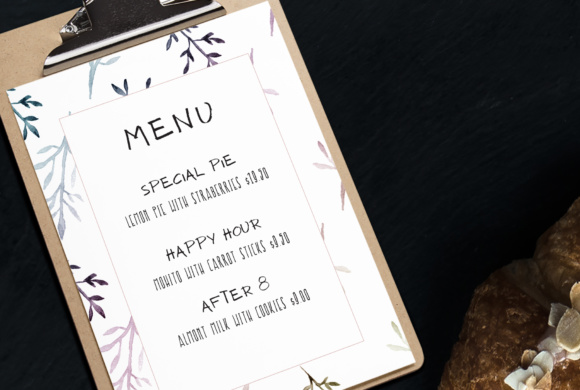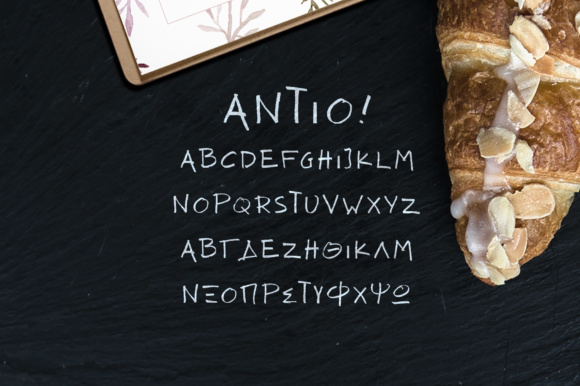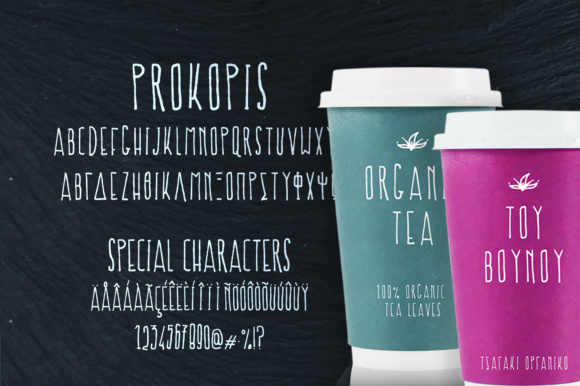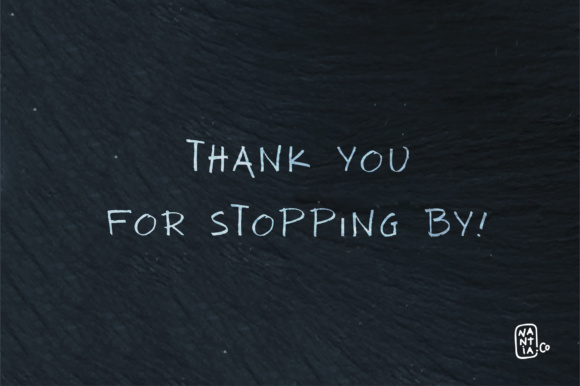
Introduction to Antio! Duo Font
Antio.
is a cute duo font You can use these the two typefaces separately or you can pair them up for a trendy look.
Key Features of Antio! Duo Font